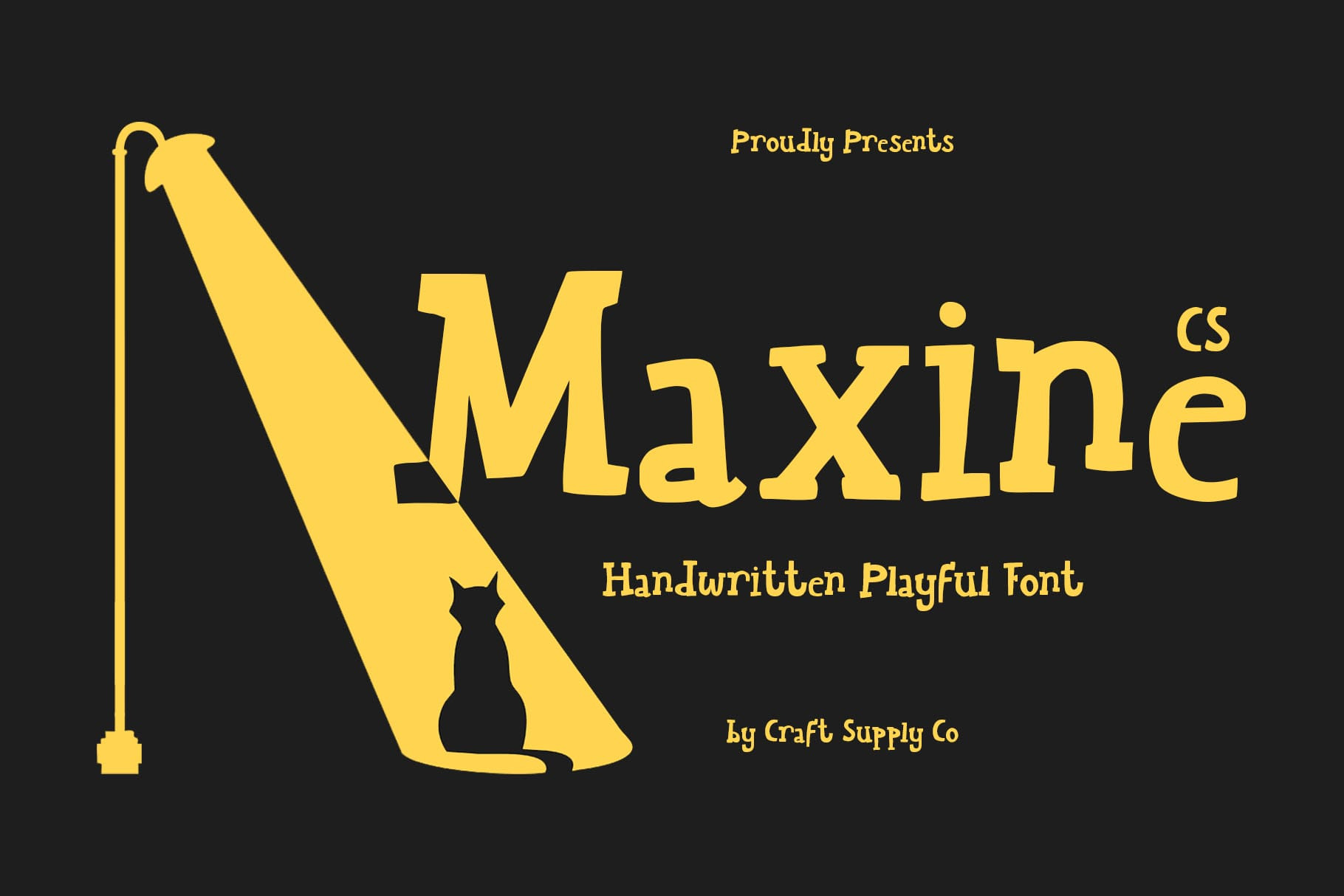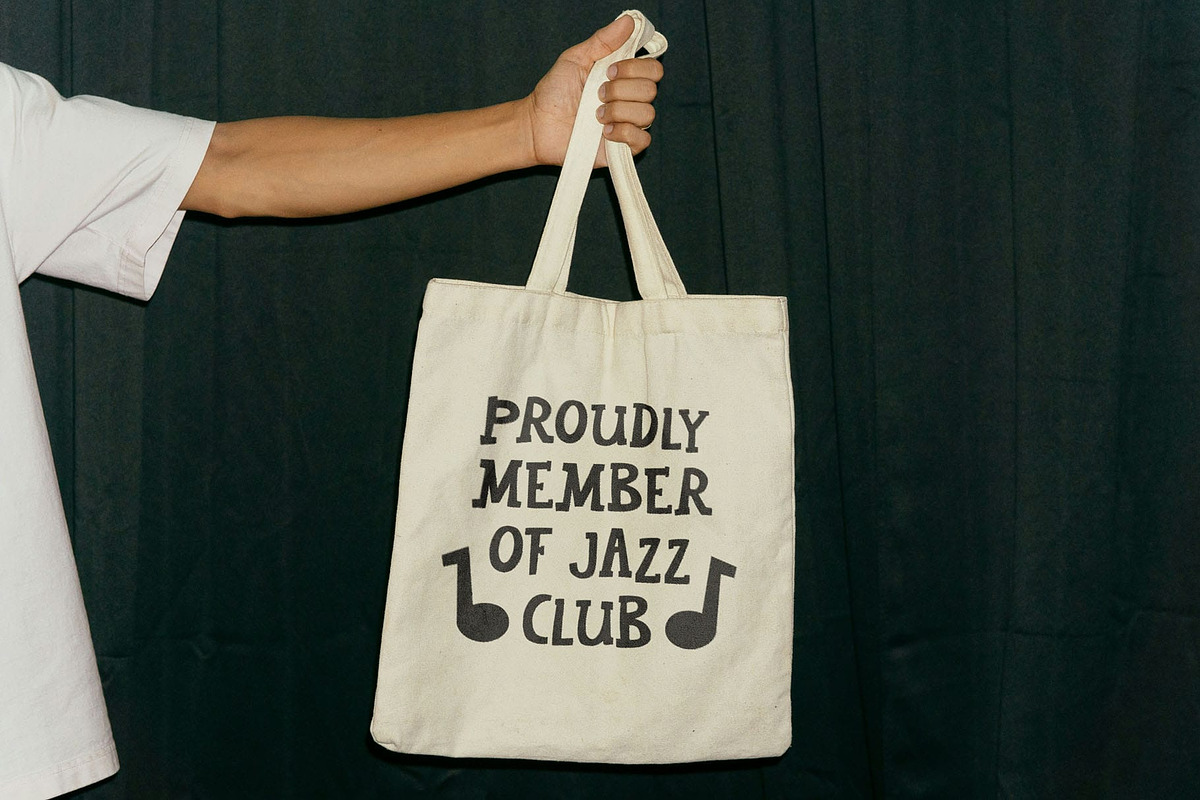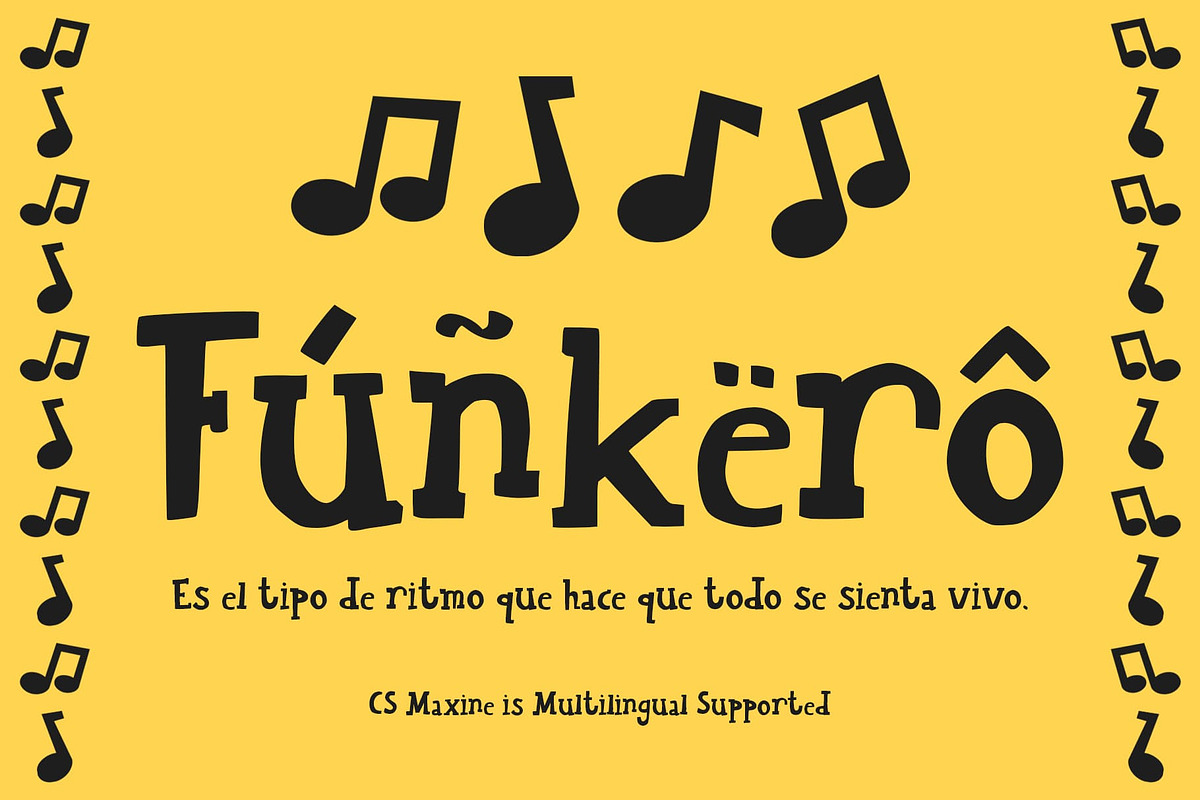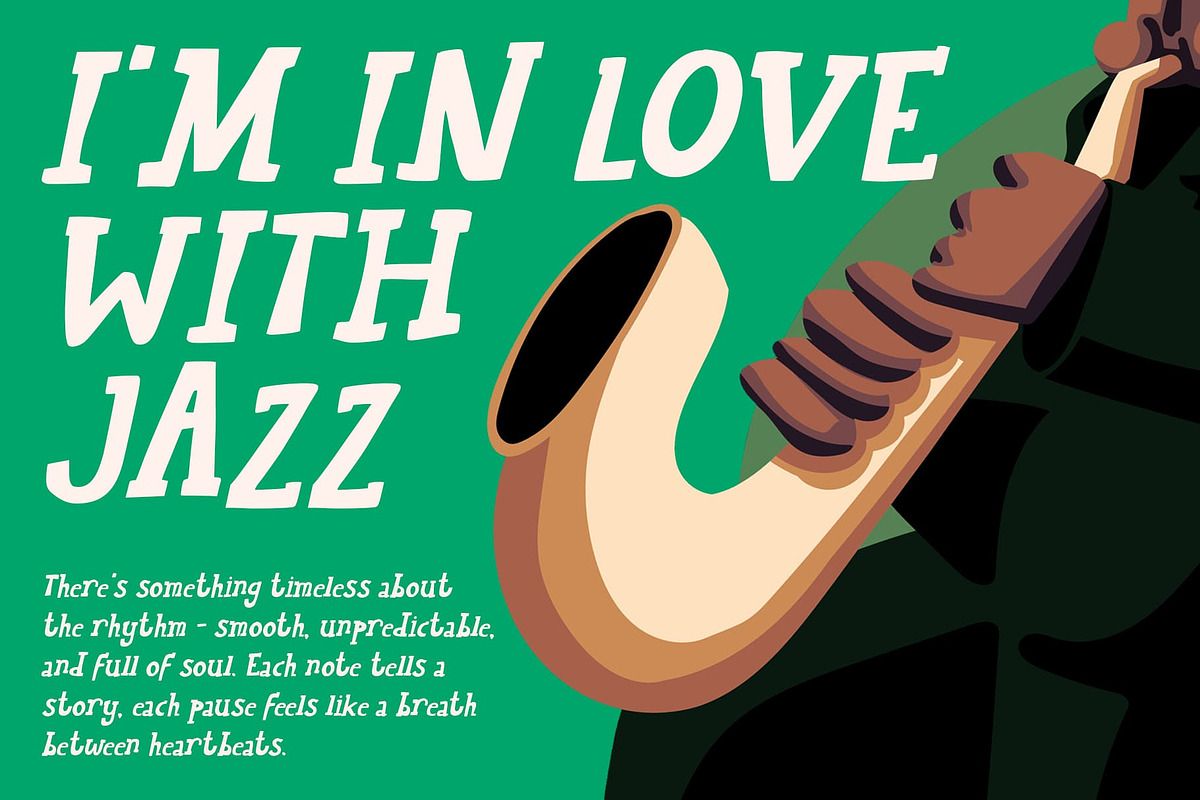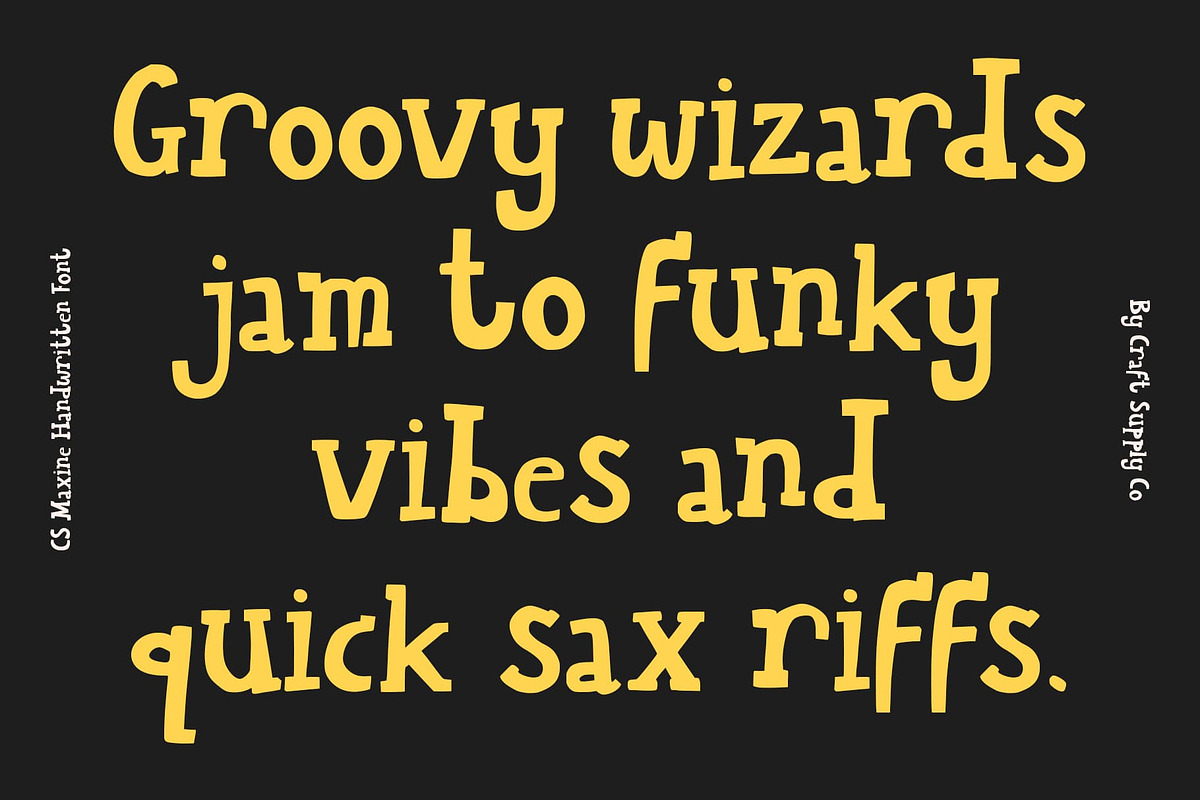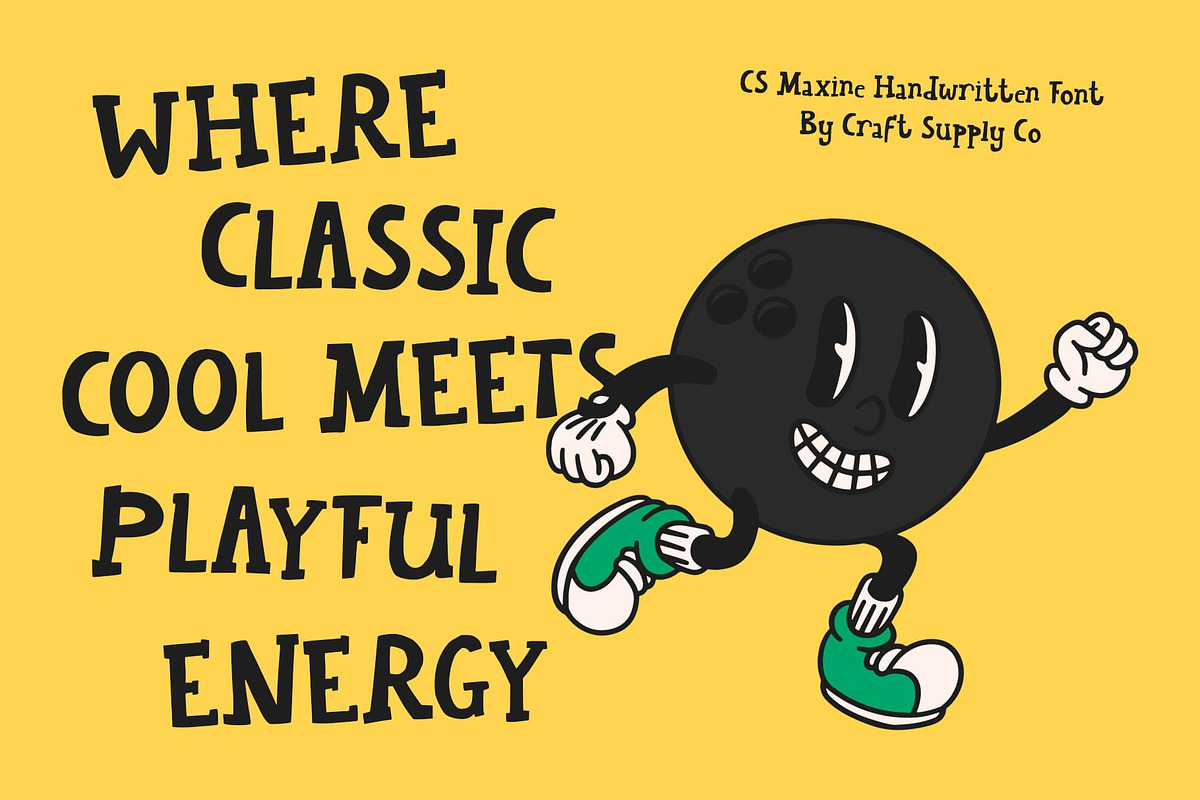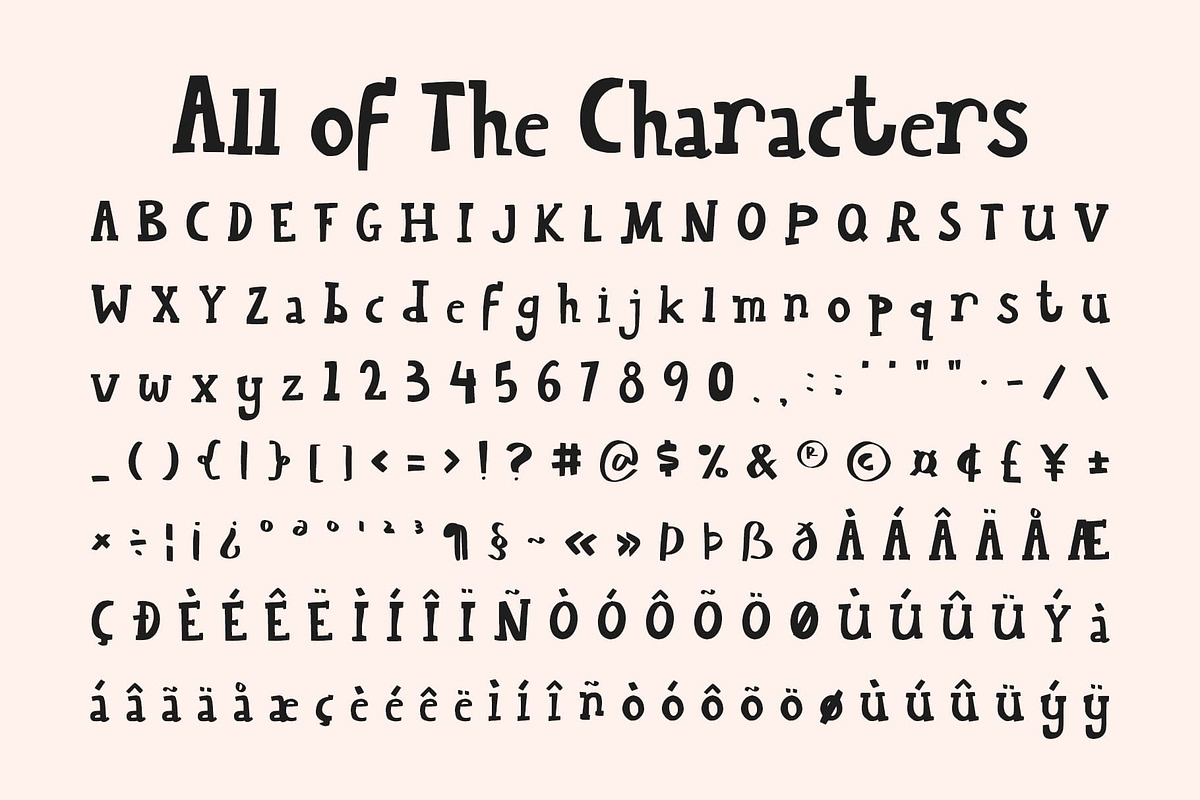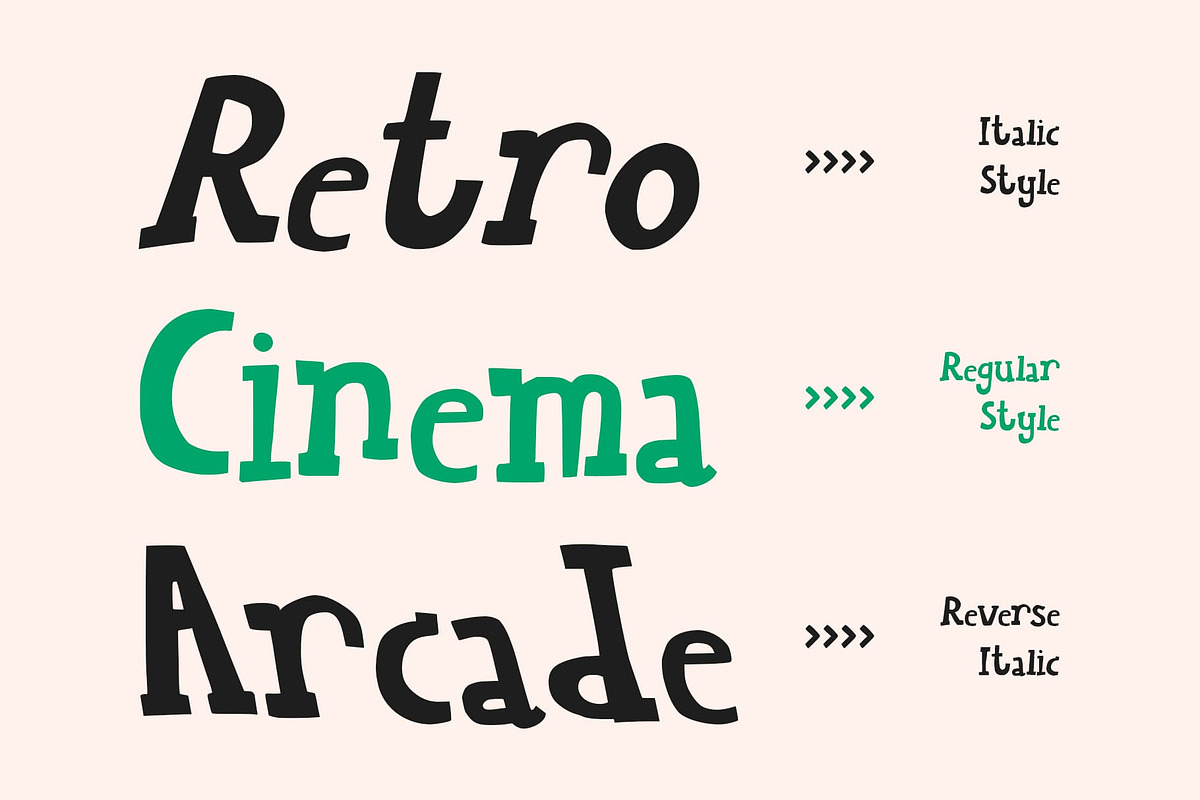
CS Maxine – Playful Handwritten Font
CS Maxine – Playful Slab Serif with Handcrafted Charm
Handwritten Slab Serif with Cheerful Personality This is a playful font that combines the structure of a slab serif with the warmth of handwritten lettering. Its naturally drawn texture brings authenticity and friendliness, making every word feel lively and expressive.
Expressive and Cheerful Design The font’s organic strokes and subtle irregularities infuse it with a playful, funky, and upbeat vibe. This font balances modern style with hand-crafted character, giving your designs a fresh and approachable personality.
Friendly and Modern Appeal With its fusion of slab serif stability and casual handwritten energy, this font feels both contemporary and personable. It’s ideal for designs that want to communicate friendliness, creativity, and charm in a visually engaging way.
Perfect for Titles, Posters, and Creative Projects This font shines in titles, posters, branding, and other creative projects where personality matters. Its playful texture and expressive forms ensure your work feels fresh, full of character, and ready to stand out.
- CS Maxine Regular
- CS Maxine Italic
- CS Maxine Reverse Italic